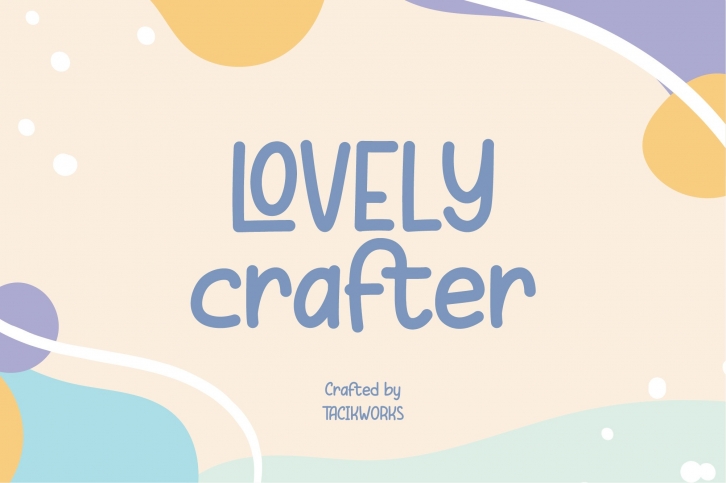
Lovely Crafter is a great font that was designed by TACIKWORKS. Imagine the amount of combinations you can create using this font! The archive is 12.28 MB and it was released on April 11, 2020. Lovely Crafter looks beautiful on wedding invitations, greeting cards, logos, posters, labels, t-shirt designs, logos, business cards and is perfect for use in ink or watercolor works, fashion, magazines, packaging and food menus, children's books and more!